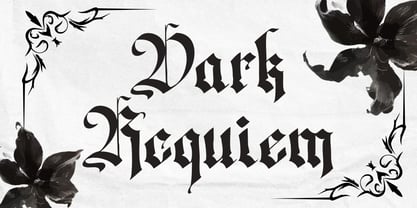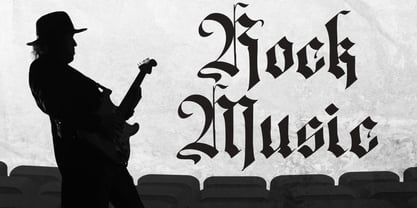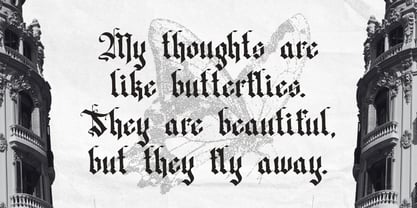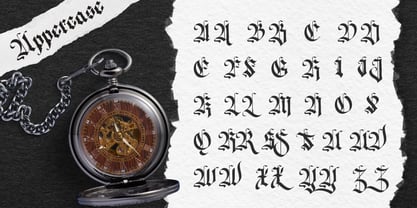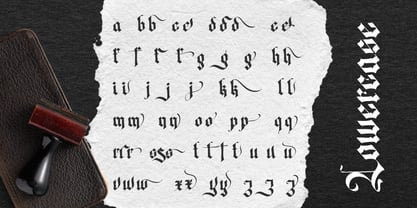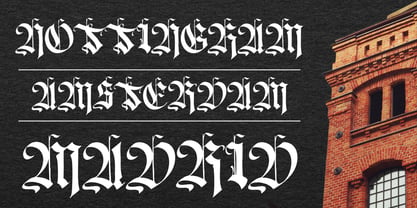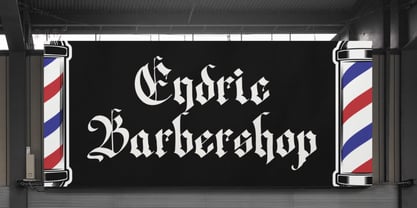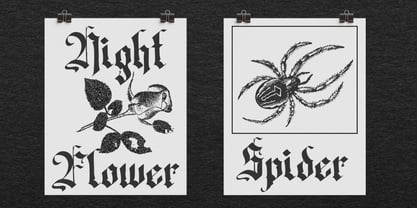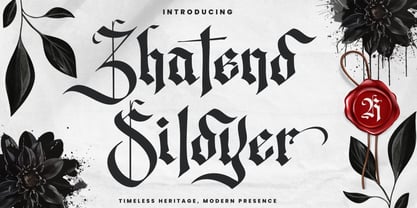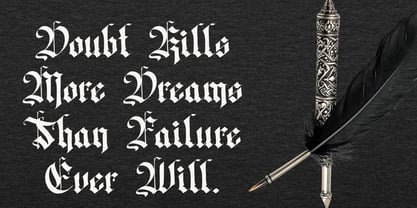
Zhatend Sildyer
Introducing Zhatend Sildyer, a striking blackletter and gothic font that seamlessly blends the heritage of classic calligraphy with modern readability. Crafted with sharp, meticulous pen-stroke details and elegant decorative curves, this font delivers a strong, bold, and highly premium aesthetic to your creative projects. Zhatend Sildyer is the perfect choice for adding a vintage, edgy, or exclusive handmade touch to your digital and print designs, making it ideal for branding, packaging, and UI applications.